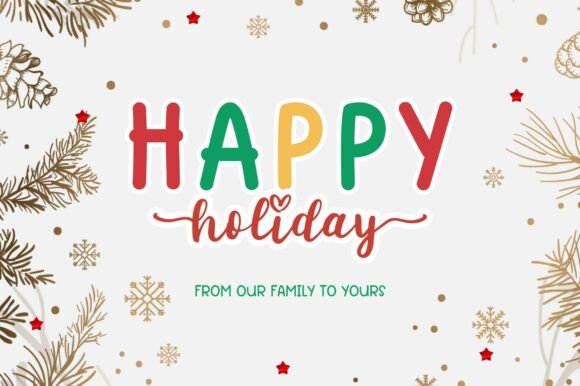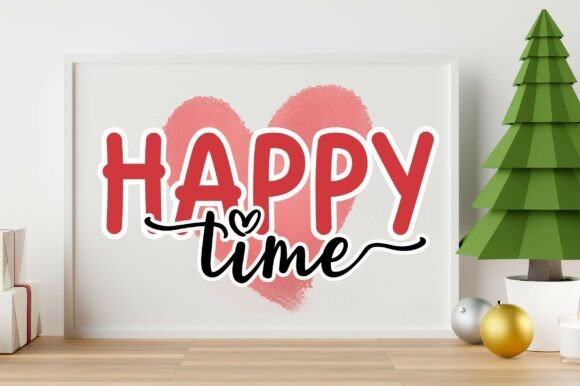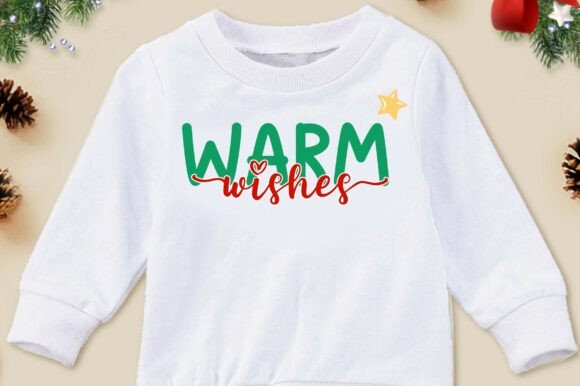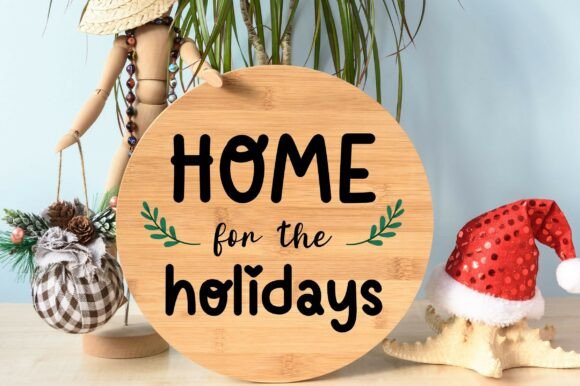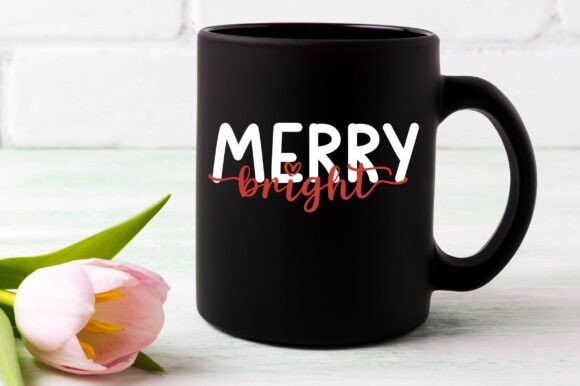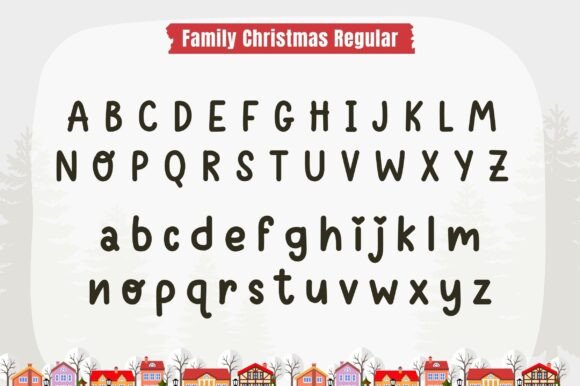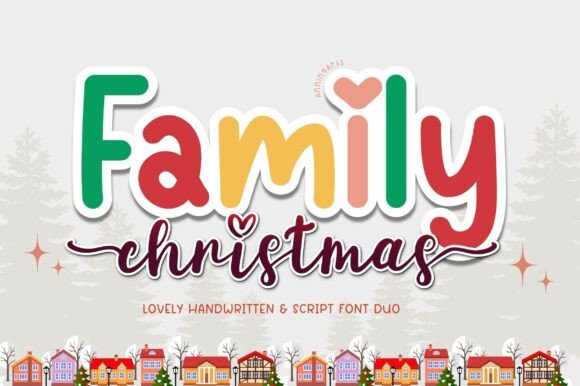
Introducing Family Christmas Duo Font: Spread Joy and Cheer with this Lovely Handwritten & Script Font Pair
Are you looking for the perfect font duo to add a touch of warmth and joy to your holiday designs? Look no further than the Family Christmas Duo Font! This delightful handwritten and script font pair is designed to bring playful charm and coziness to your holiday creations, making it ideal for kid-friendly projects, cheerful branding, holiday cards, and festive signage.
A Perfect Pair for Holiday Designs
The Family Christmas Duo Font consists of two complementary fonts: a bold, rounded sans font and a heart-detailed script font. The sans font is perfect for headlines and titles, while the script font adds a touch of elegance and sophistication to your designs. Together, they create a beautiful and harmonious pair that bursts with color and character.
Whether you’re designing holiday cards, festive signage, or cheerful branding materials, this font duo is sure to bring a smile to everyone’s face. The bold, rounded sans font is perfect for creating eye-catching headlines, while the heart-detailed script font adds a touch of whimsy and playfulness to your designs.
Whether you’re creating holiday decorations, gift tags, or personalized cards, this font duo makes every design feel cheerful, personal, and full of love. The font’s playful and whimsical design ensures that your projects will stand out from the crowd and bring joy to everyone who sees them.
Key Features of Family Christmas Duo Font
• Handwritten and Script Font Pair: The Family Christmas Duo Font consists of two complementary fonts: a bold, rounded sans font and a heart-detailed script font.
• Kid-Friendly: The font duo is perfect for kid-friendly projects, including holiday cards, decorations, and activities.
• Cheerful Branding: The font duo is ideal for cheerful branding materials, including logos, packaging, and advertising.
• Festive Signage: The font duo is perfect for creating festive signage, including holiday banners, posters, and flyers.
Tips for Using Family Christmas Duo Font
Here are some tips for using the Family Christmas Duo Font in your holiday designs:
• Pair with Other Fonts: Experiment with pairing the Family Christmas Duo Font with other fonts to create unique and interesting combinations.
• Use Swashes and Alternate Characters: Take advantage of the font’s PUA-encoded design to access swashes and alternate characters and add a personal touch to your designs.
• Add Colors and Patterns: Add colors and patterns to your designs to make them more festive and eye-catching.
• Experiment with Sizes and Styles: Experiment with different sizes and styles to create visual interest and hierarchy in your designs.
The Family Christmas Duo Font is a lovely handwritten and script font pair that brings warmth and joy to your holiday designs. With its playful and whimsical design, it’s perfect for kid-friendly projects, cheerful branding, holiday cards, and festive signage. Whether you’re a designer or crafter, this font duo is sure to become a favorite in your holiday design arsenal.